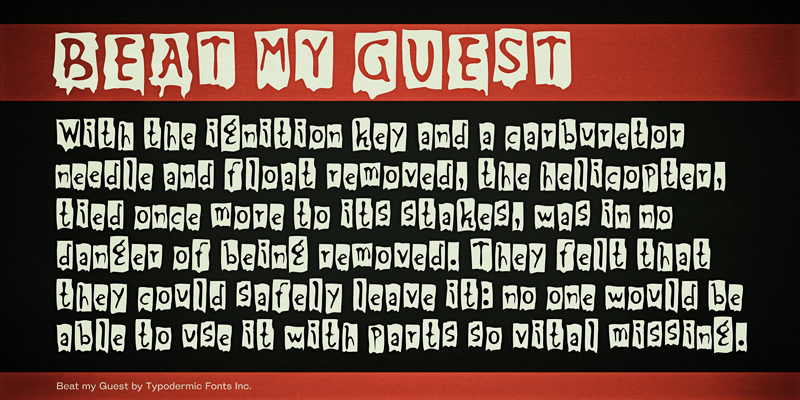
Beat My Guest is a meaty, horror font from beyond the grave. This font includes a license that allows free commercial use: sometimes referred to as a desktop license. This allows you to install the font on a computer and use it to create posters, web graphics, game graphics, t-shirts, videos, signs, logos and more. Read the license agreement for details. If you'd like to embed this font in an app, ebook, on the web or anything that's not covered by the desktop license agreement, visit the link below. You'll find distributors who offer different types of licenses or you can contact me for help. http://typodermicfonts.com/beat-my-guest/ |